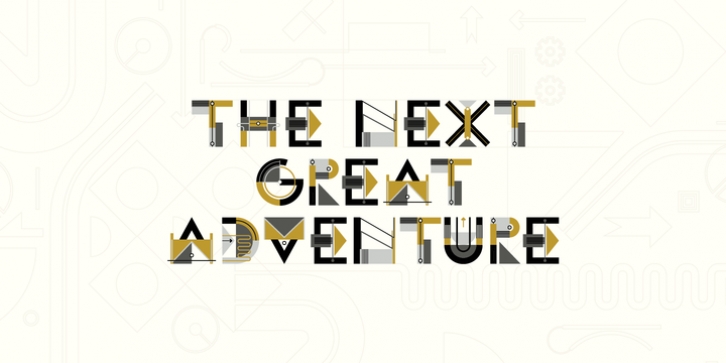
A collaboration between Leandro Castelao (illustrator) and Ale Paul (type designer) for Sudtipos as part of the first project at the foundry between illustration and type design to create a collection of colorfonts.
About the font: Machinery, cables, and geometry are the playground were Maquina's been created. I imagined something intricate but at the same time clean and organized, like a controlled chaos to some extent. The result is complex but playful. Elegant with fun little details.